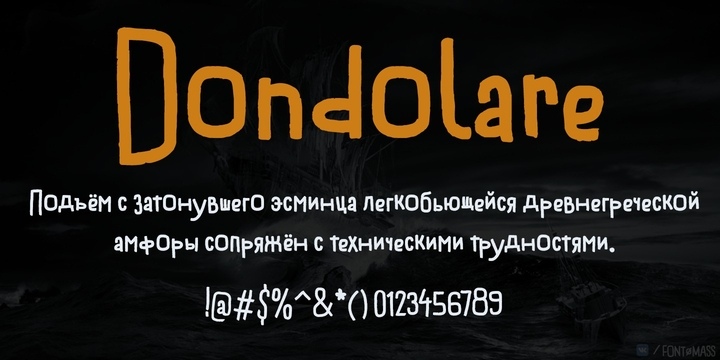
Dondolare Font
Dondolare Font is perfect for playful children's brands, whimsical toy packaging, animated entertainment marketing, creative kids' products, fun educational materials, colorful playground signage, cheerful daycare centers, and imaginative family-oriented campaigns. This delightful typeface excels in applications where gentle movement and playful charm are essential for creating joyful and engaging brand experiences that capture the carefree spirit of childhood wonder.
What makes Dondolare Font truly exciting is its enchanting embodiment of gentle swaying motion and playful rhythm that captures the soothing movement of a rocking chair and the carefree dancing of children at play. The font features softly curved letterforms with swaying character details and rhythmic variations that mirror the natural pendulum motion of gentle rocking and the joyful bounce of childhood activities. Its playful personality and rhythmic character create an immediate sense of comfort and gentle fun that resonates with audiences seeking wholesome entertainment and family-friendly experiences. The typeface's swaying appeal and childhood charm make it perfect for brands wanting to convey comfort, playfulness, and connection to the soothing rhythms and innocent joy of childhood experiences.
The Dondolare Font family includes regular and decorative versions with swaying variations, complemented by playful alternates and movement-inspired decorative elements. The font offers comprehensive character sets with playful symbols, rhythmic ligatures, and gentle styling details that enhance its charming aesthetic. Additional graphic elements including swaying patterns, playful motifs, childhood ornaments, and rhythmic flourishes provide designers with complete branding tools rooted in childhood comfort and gentle movement traditions.